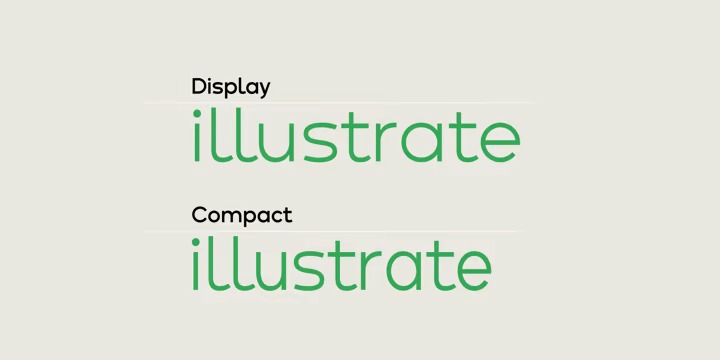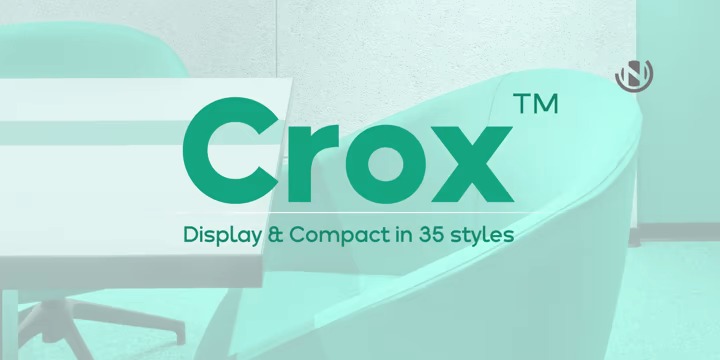
Crox Font
Crox Sans Serif Font is a favorite geometric sans serif font inspired from crude geometry, creativity, and art, It was designed with two families (display and compact width for wide texts and paragraphs), In each family, there are 16 styles, including upright and italic, It is constructed of big lowercase letters with a maximum xHeight for excellent optical reading.
English letters are supported as a numerator and denominator set, this feature may aid in the creation of fractions using letters and numbers, as well as for sophisticated scripting and various scientific fractions forms.
Crox™ is enhanced with a poster weight like the fantastical type to fulfill your creative needs in three styles: poster, poster oblique, and poster italic for ADS and web design, branding, or product design.